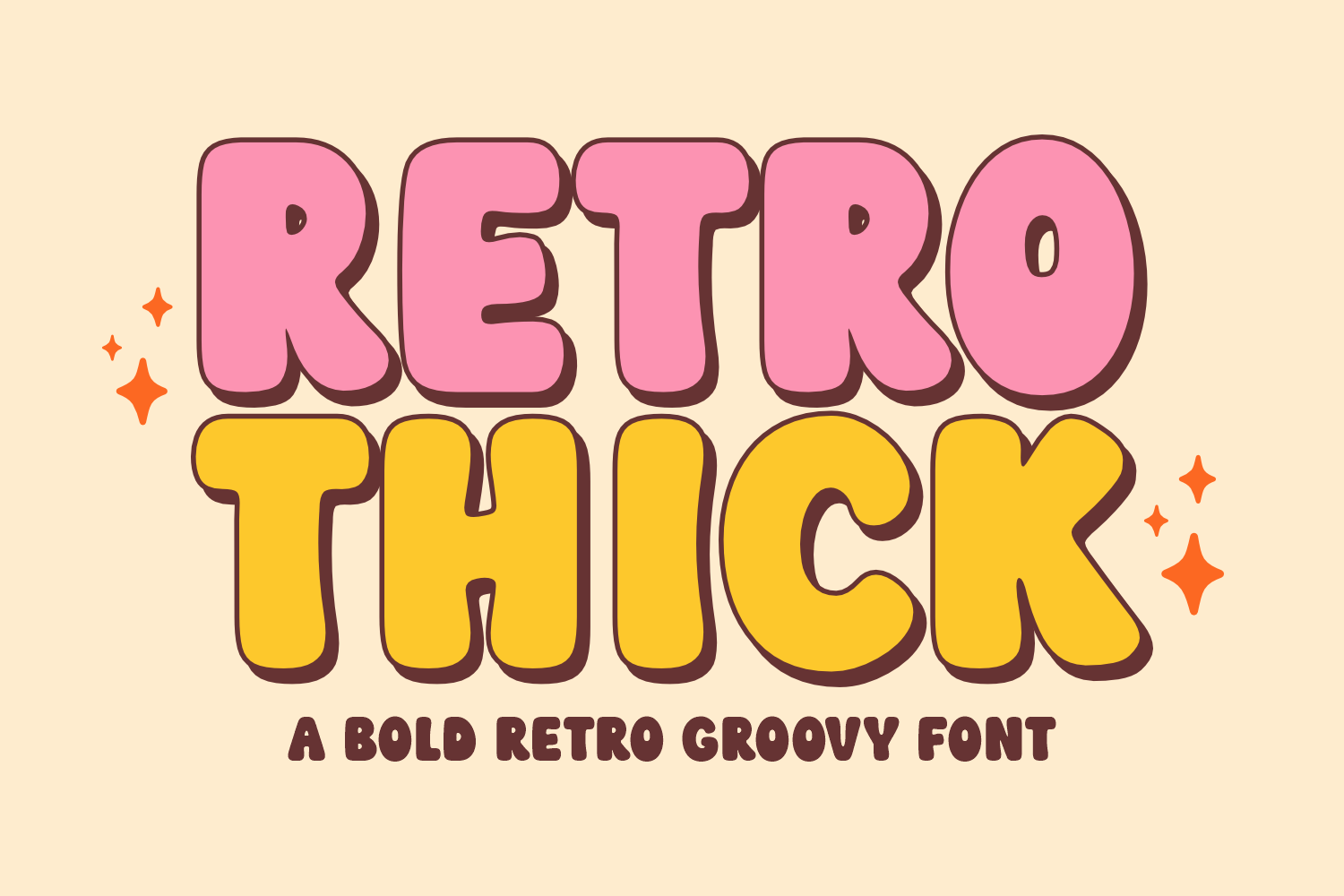
Retro Thick - Retro Font
Imbued with a charming vibe of yesteryears, Retro Thick brings a delightful fusion of versatility, style, and fun to the realm of display fonts. With its polished retro aesthetics, this tempting typeface effortlessly elevates a plethora of applications—from compelling logotypes to captivating posters, from trendy clothing brands to compelling headlines, and beyond. Incorporating Retro Thick into your creative ventures bestows them with a touch of romantic sophistication and an exquisite finesse. Experience how this whimsical font can artfully enhance your work, adding a layer of nostalgic allure.